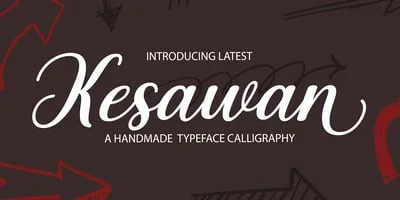
Kesawan Script
Kesawan Script Font
The Kesawan Script Font excels in various design applications including Southeast Asian cultural branding, elegant invitation design, traditional calligraphy projects, heritage hospitality marketing, sophisticated wedding stationery, cultural festival promotions, artisanal craft packaging, boutique restaurant signage, refined spa communications, and distinguished regional projects that demand cultural authenticity and flowing script sophistication.
What makes the Kesawan Script Font exciting is its beautiful interpretation of traditional Southeast Asian calligraphy combined with contemporary elegance through letterforms that capture the graceful flow and cultural richness of regional script traditions. This typeface embodies the essence of cultural heritage through carefully crafted characters that suggest the fluid motion of traditional brush strokes, the artistic refinement of cultural calligraphy, and the timeless beauty of handwritten traditions passed down through generations. The font's cultural personality makes it perfect for organizations seeking to honor Southeast Asian heritage while communicating sophisticated elegance through typography that bridges traditional artistry with contemporary design sensibilities.
The Kesawan Script Font family typically includes flowing weight variations that preserve the cultural script aesthetic, featuring elegant connecting strokes and extended character sets supporting regional linguistic requirements. These family options often include traditional alternates with cultural flourishes, heritage-inspired ligatures, and decorative elements that provide designers with comprehensive tools for creating authentically cultural typography that celebrates Southeast Asian artistic traditions while maintaining contemporary accessibility and professional presentation standards.
Cultural heritage professionals and regional hospitality brands consistently choose Kesawan Script Font for projects requiring typography that communicates cultural authenticity and elegant sophistication. This typeface delivers exceptional performance in cultural marketing, heritage branding, and regional communications where establishing connection to Southeast Asian traditions and demonstrating respect for cultural artistry is essential for community trust. The font's script character makes it particularly effective for ceremonial and hospitality applications. Download Kesawan Script Font today to access this culturally rich typeface that transforms communications with its flowing elegance and cultural sophistication, creating compelling experiences that honor the magnificent calligraphic traditions of Southeast Asia while maintaining contemporary design excellence and cultural sensitivity.